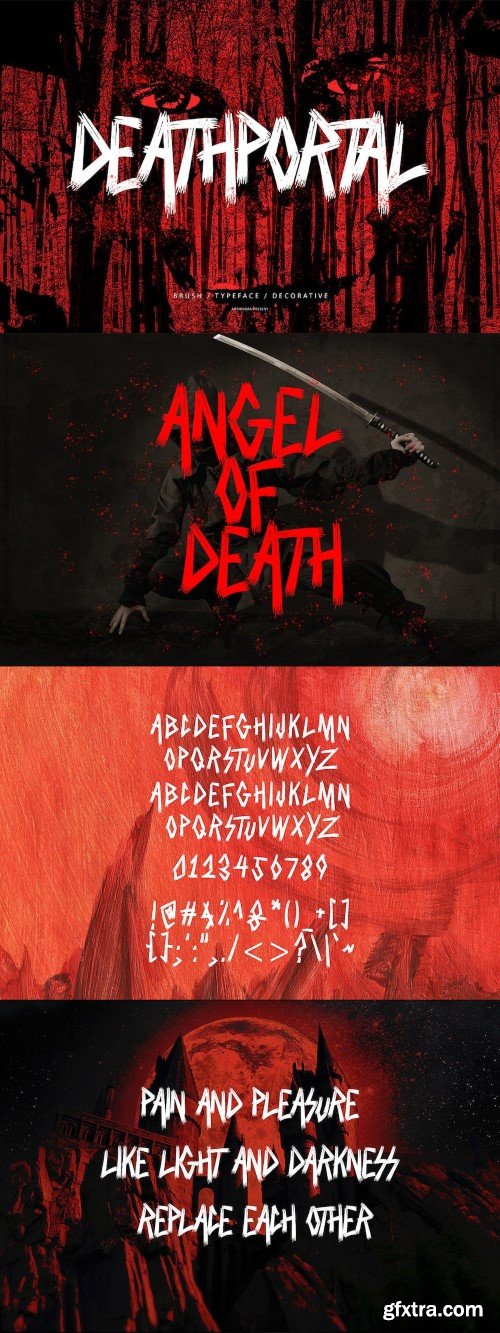
死亡门户 - 装饰字体
Introducing Deathportal, a simple and decorative font. So perfect for you who needs a typeface for logo designs, magazine, social media, brochure, and many more.
Features
- Uppercase
- Punctuation
- Numerals